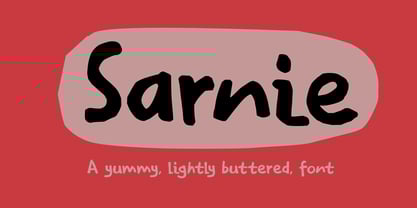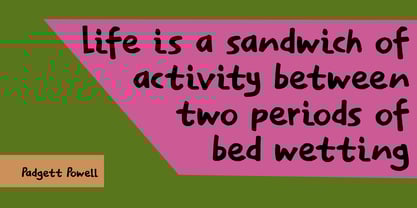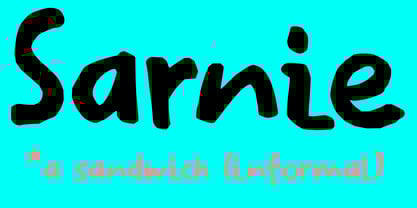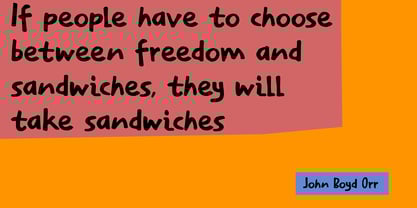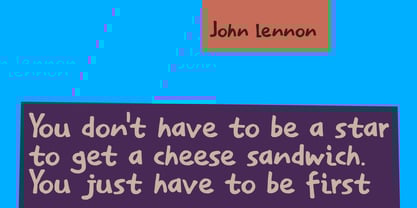
The Sarnie Font Family was designed by David Kerkhoff and published by Kitchen Table Type Foundry. Sarnie contains 2 styles and family package options.
I love British slang. It is witty, a bit obscene at times and almost always conveys the message!
Sarnie means sandwich. I was making myself one when I finished this font.
Sarnie is a handmade font; I used a Sharpie pen to draw the glyphs.
Sarnie